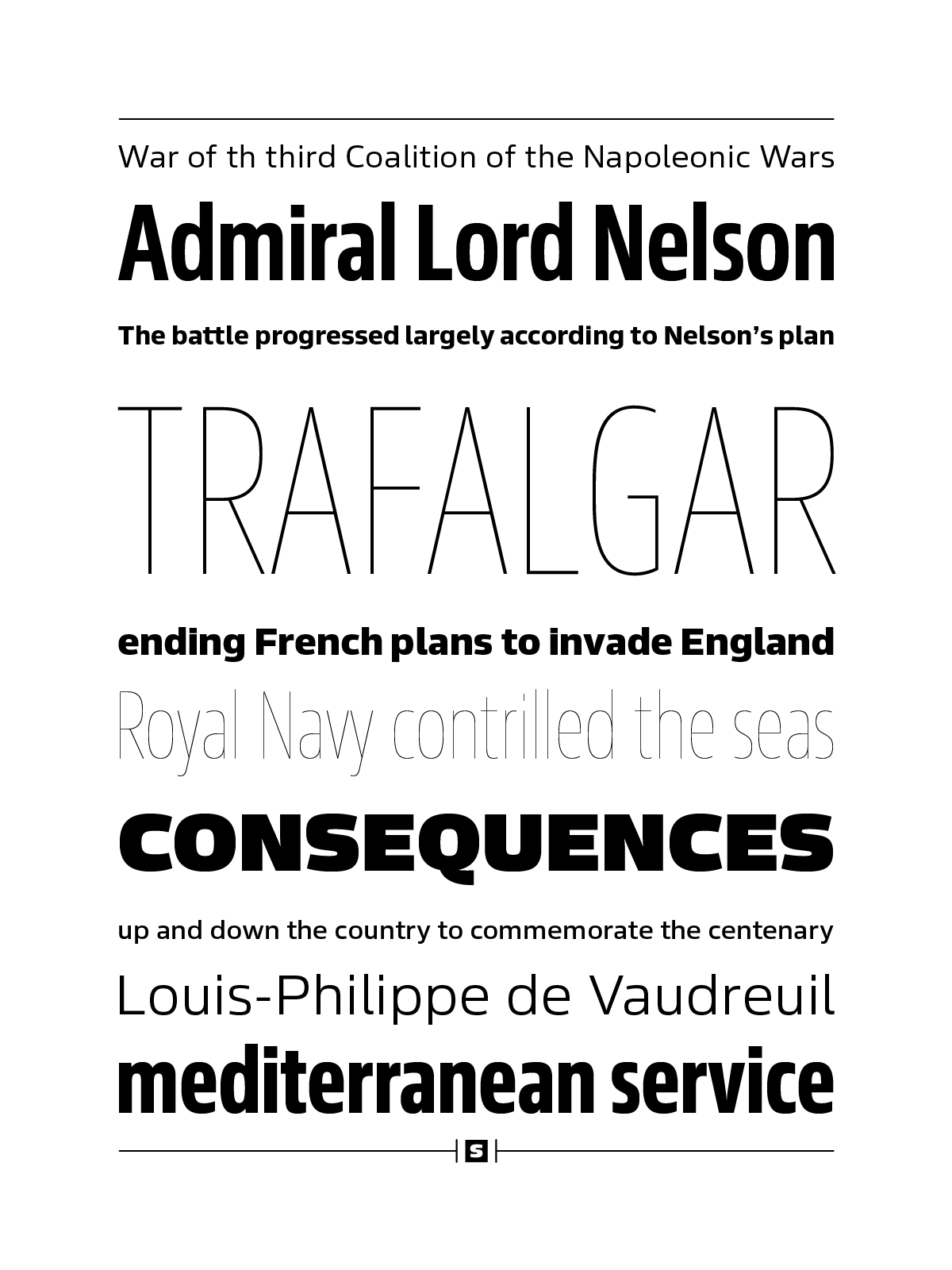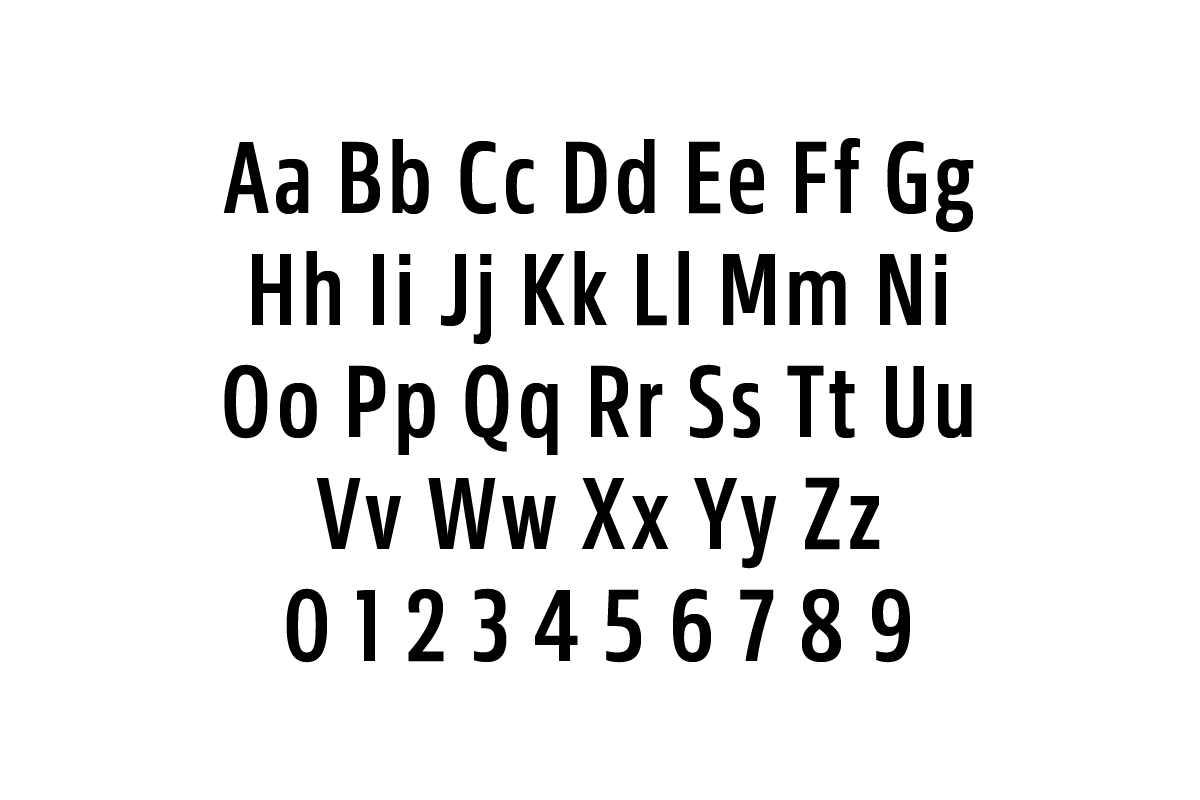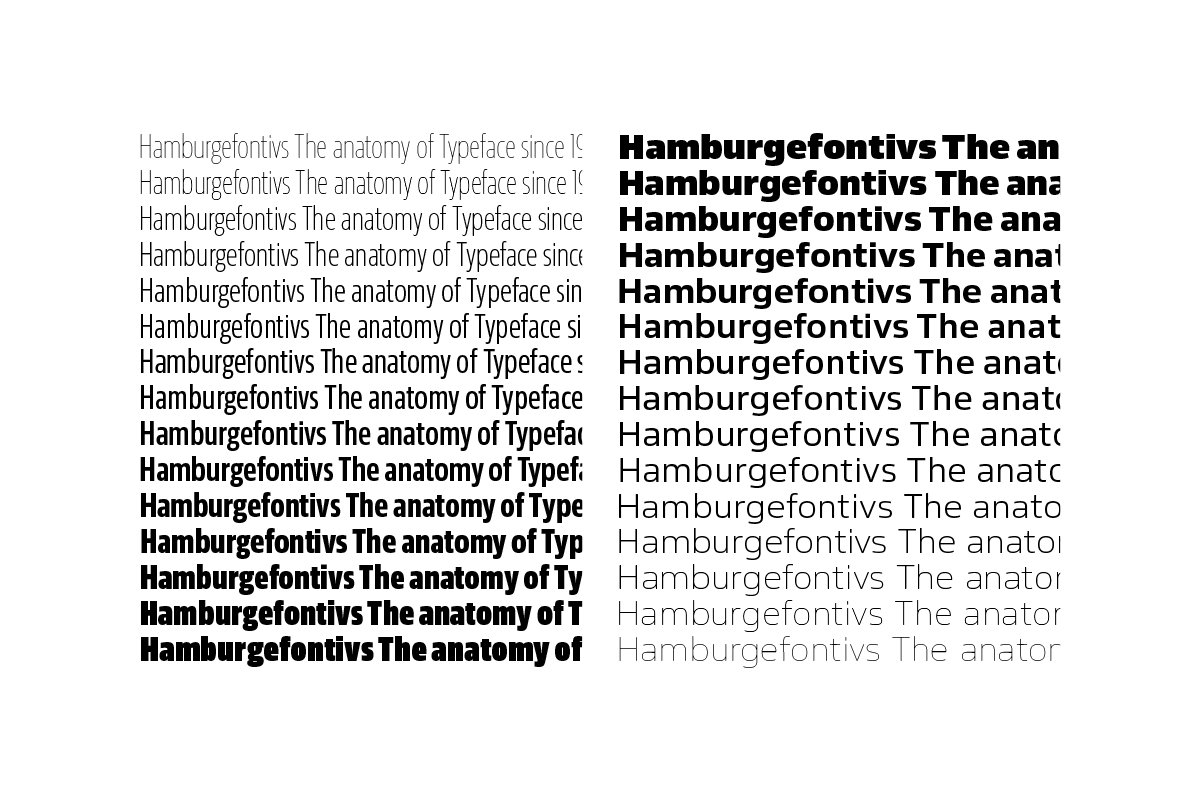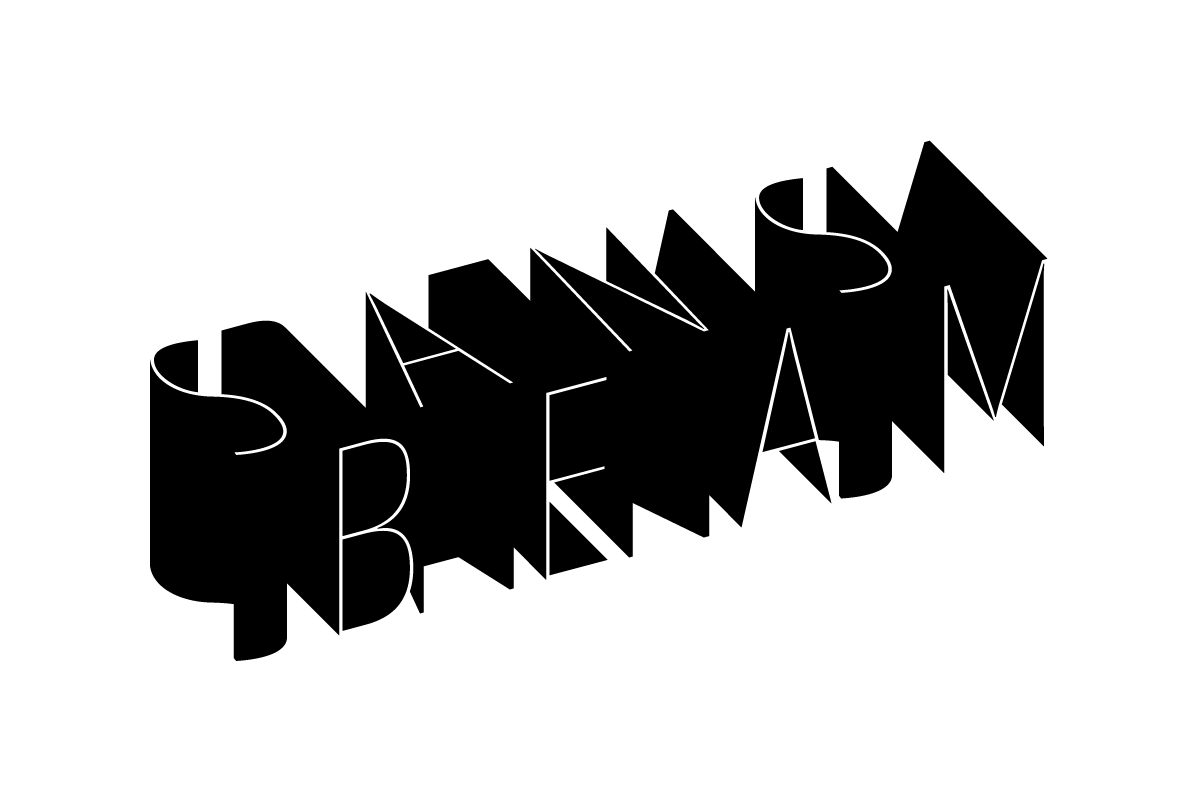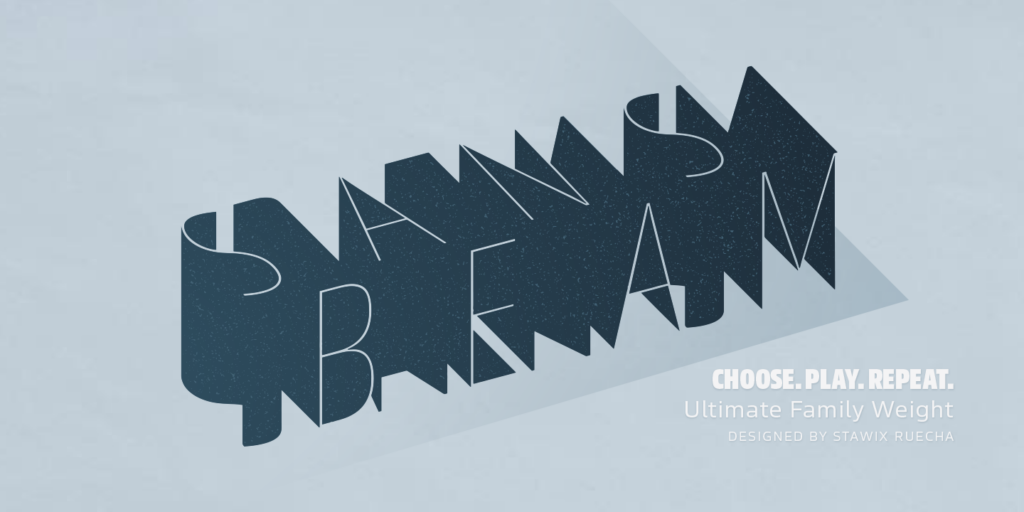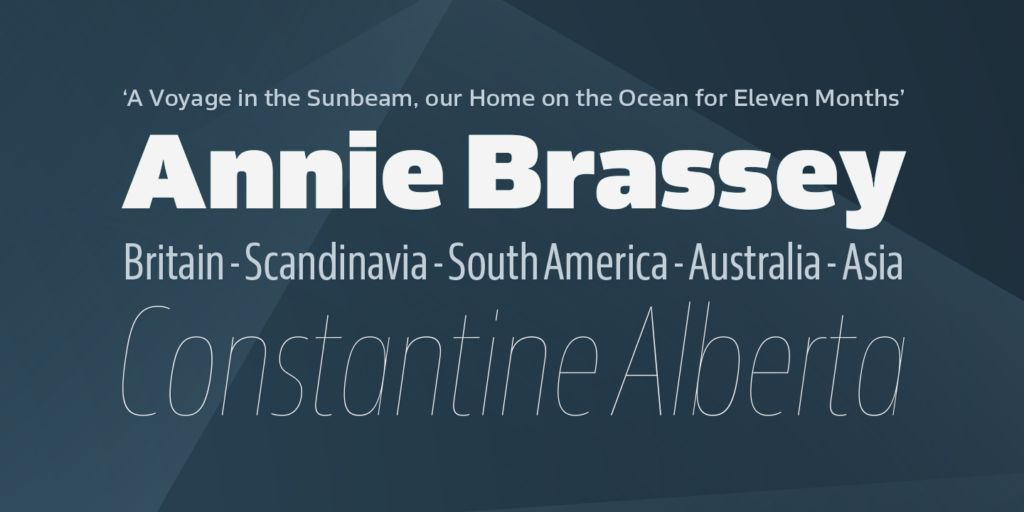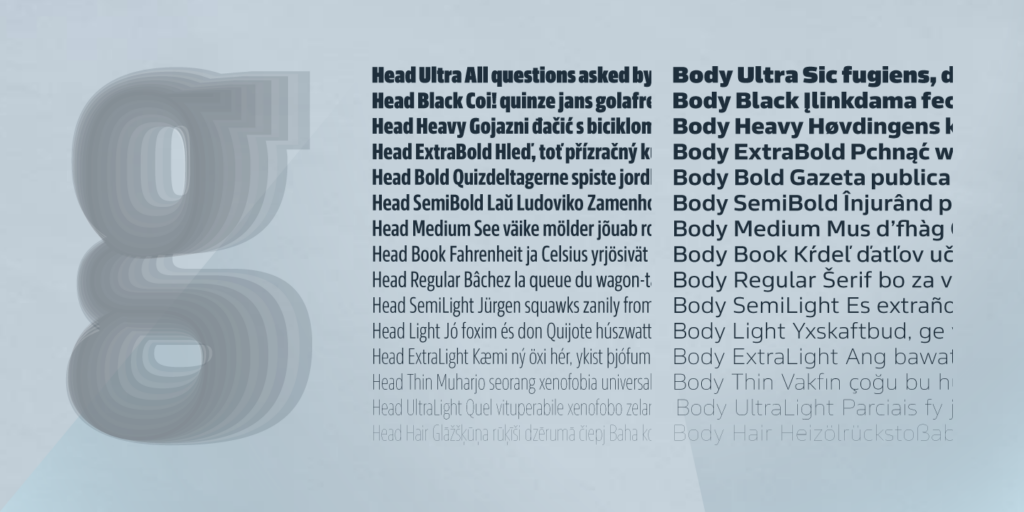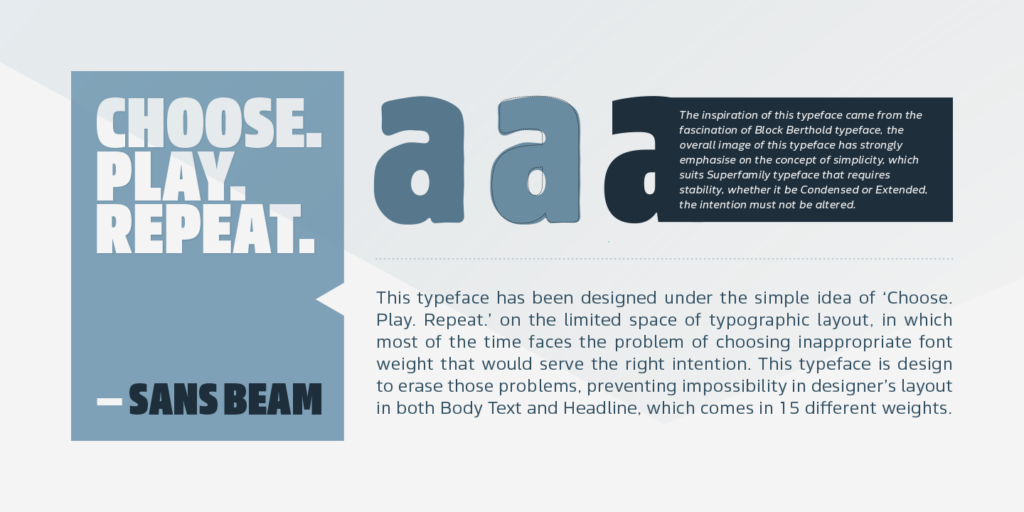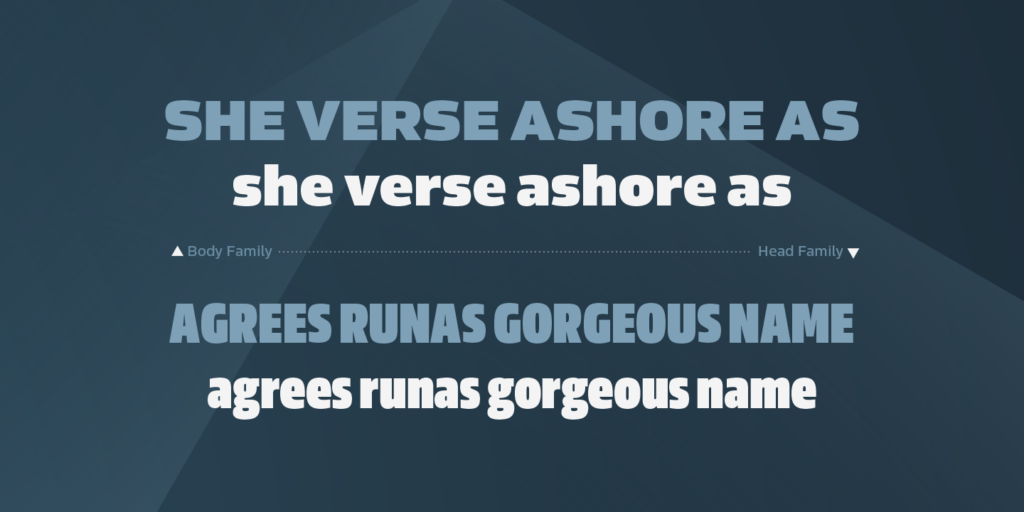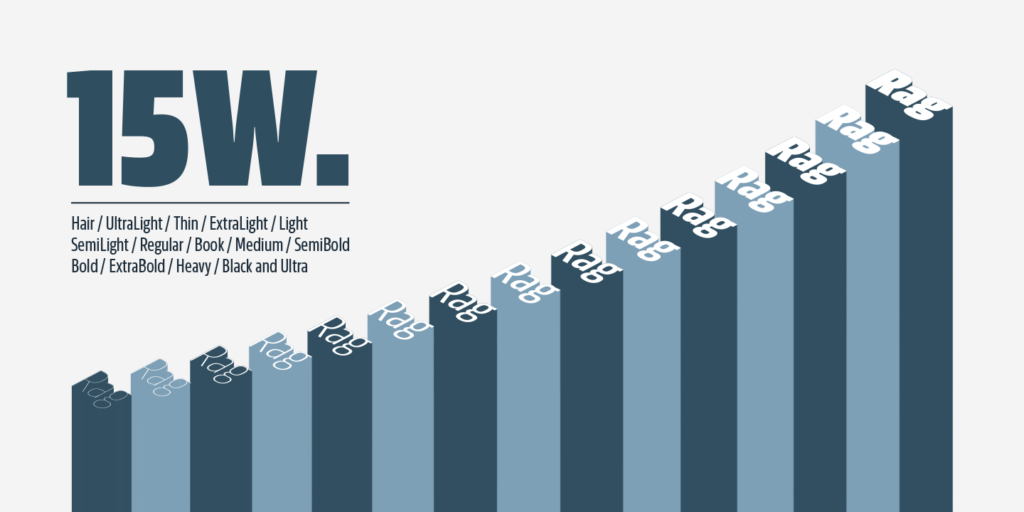
SansBeam — STAWIX Foundry
SansBeam is a retail font by STAWIX Foundry, available as a Thai and Latin typeface for branding, digital use, variable font workflows, and contemporary แบบอักษรไทย licensing.
Strong weights and sharp spacing keep the composition energetic without losing control.
Stawix Ruecha
About
After releasing Amsi in 2015, this year Sans Beam is now ready to launch with the design that support many different usability from Headline to Body text, and specifically designed to be compatible with other font families of Stawix Foundry. This typeface has been designed under the simple idea of ‘Choose. Play. Repeat.’ on the limited space of typographic layout, in which most of the time faces the problem of choosing appropriate font weight that would serve the right intention. This typeface is designed to erase those problems, preventing impossibility in designer’s layout in both Body Text and Headline, which comes in 15 different weights.